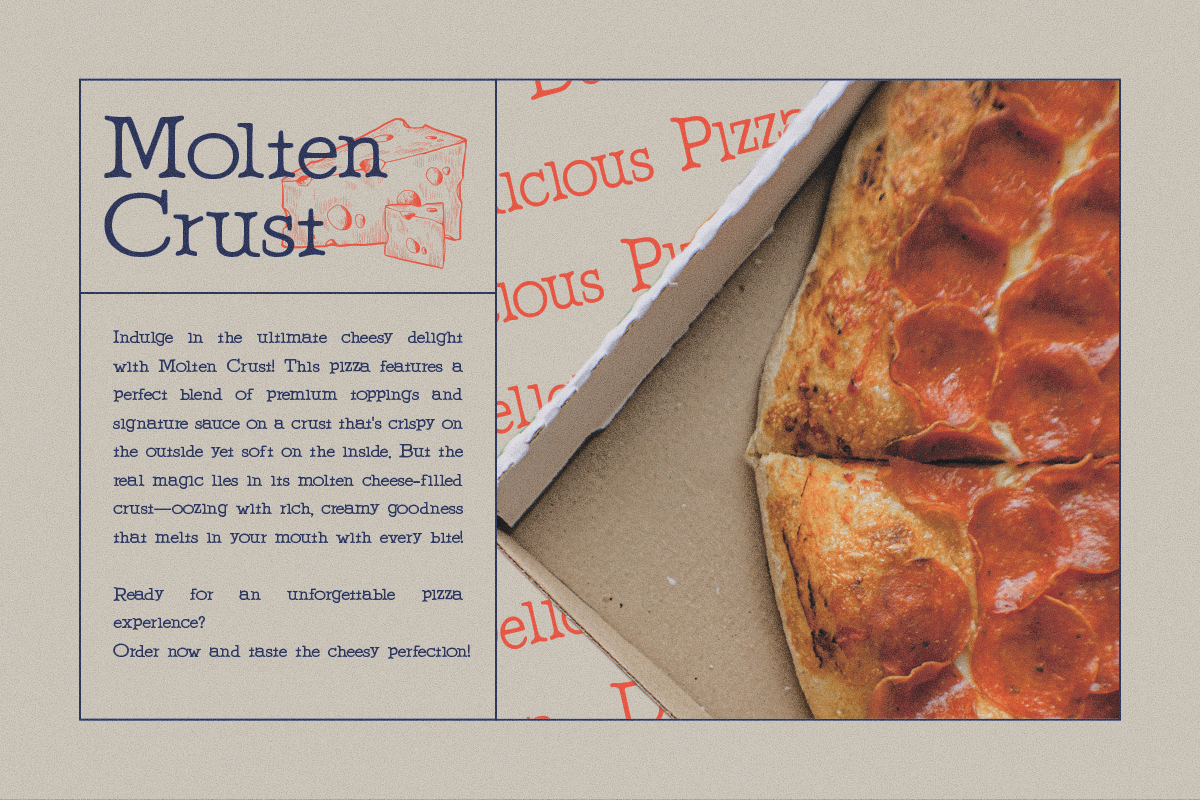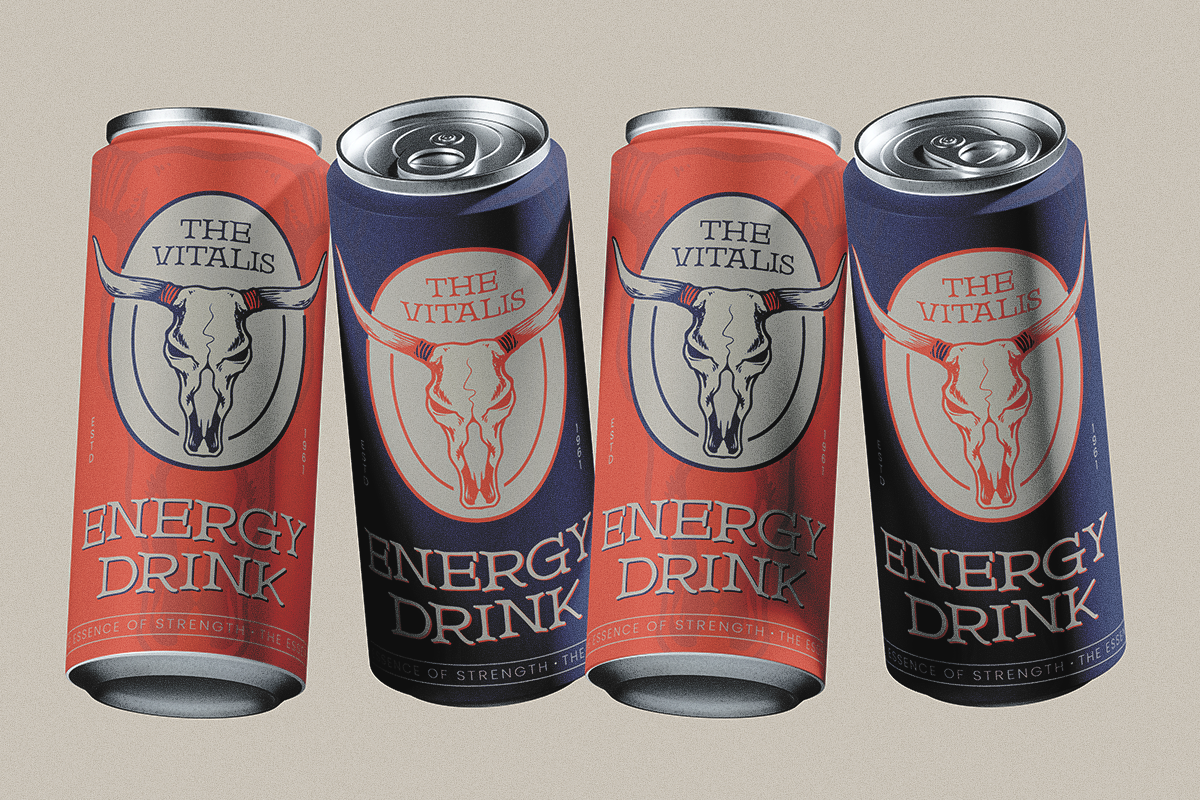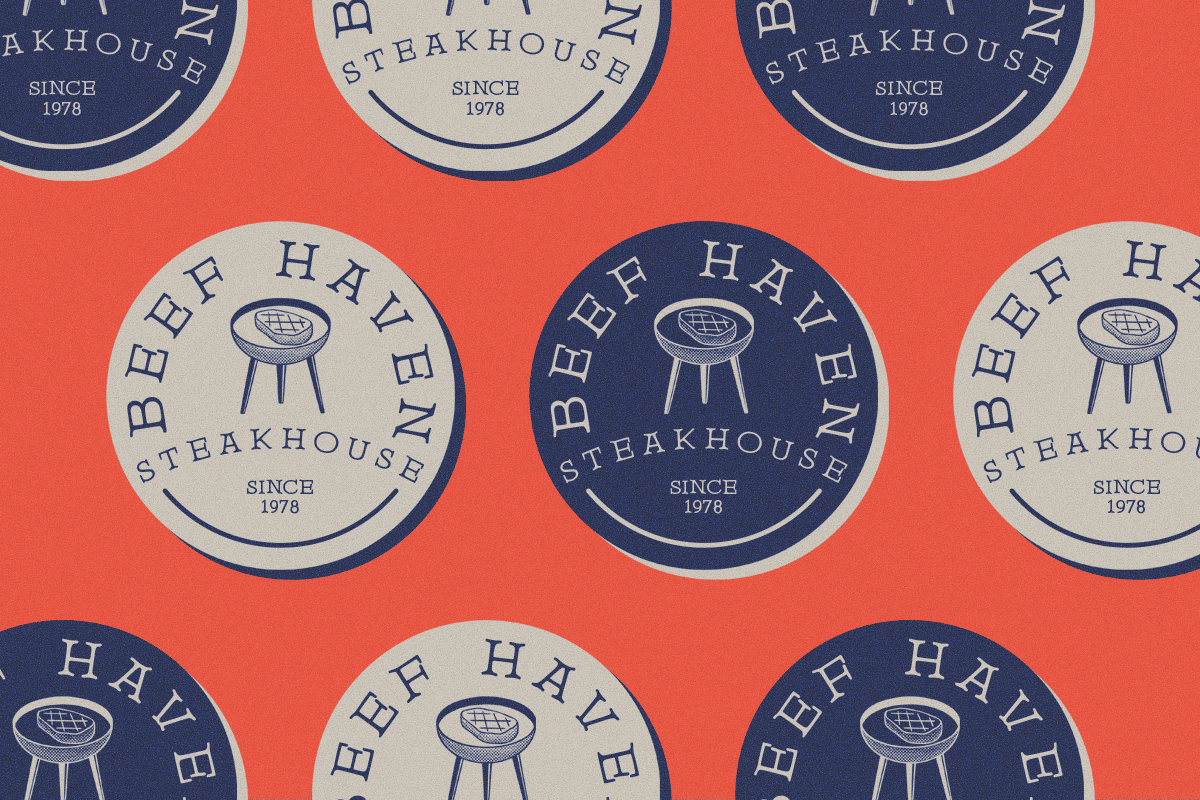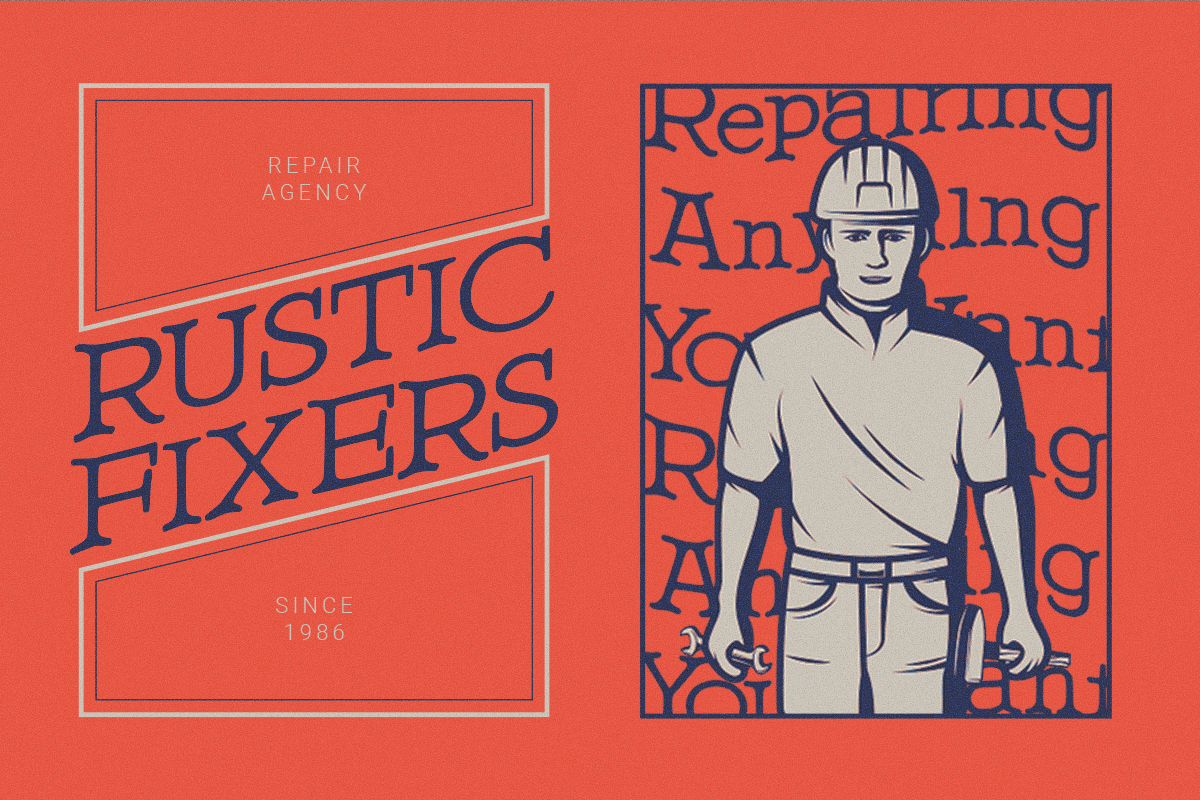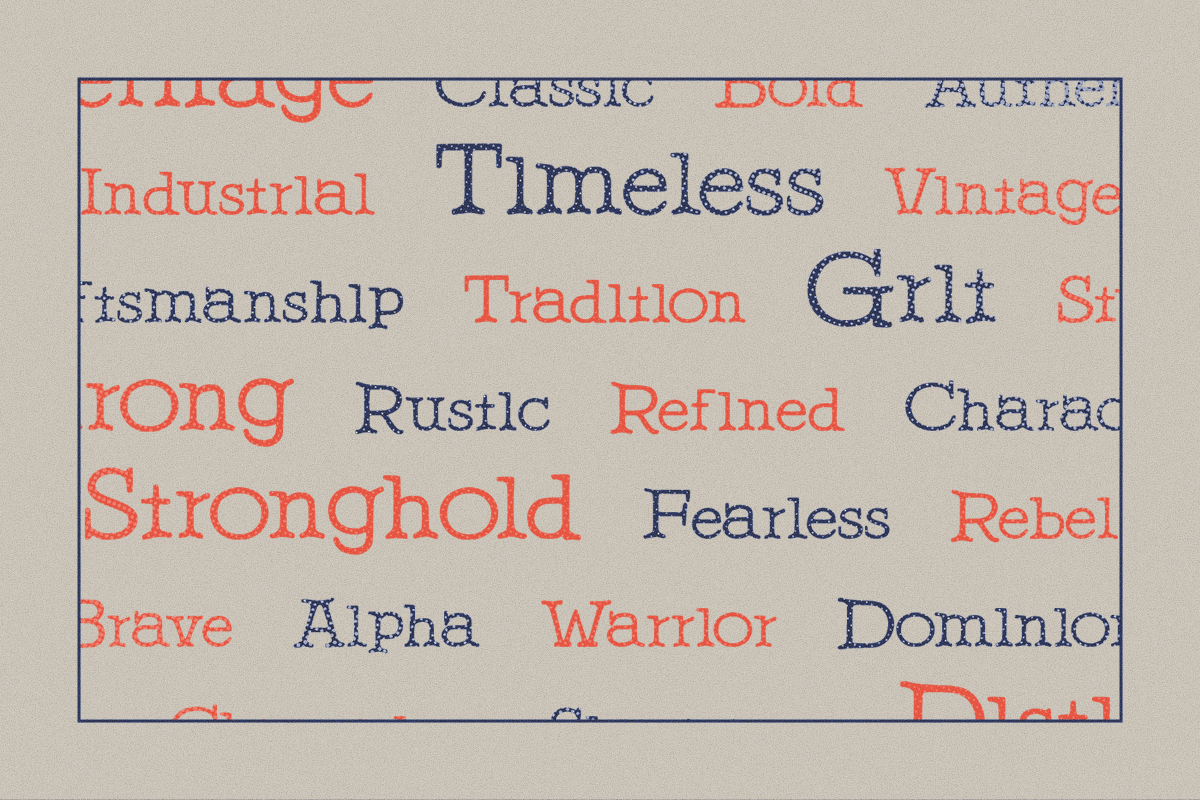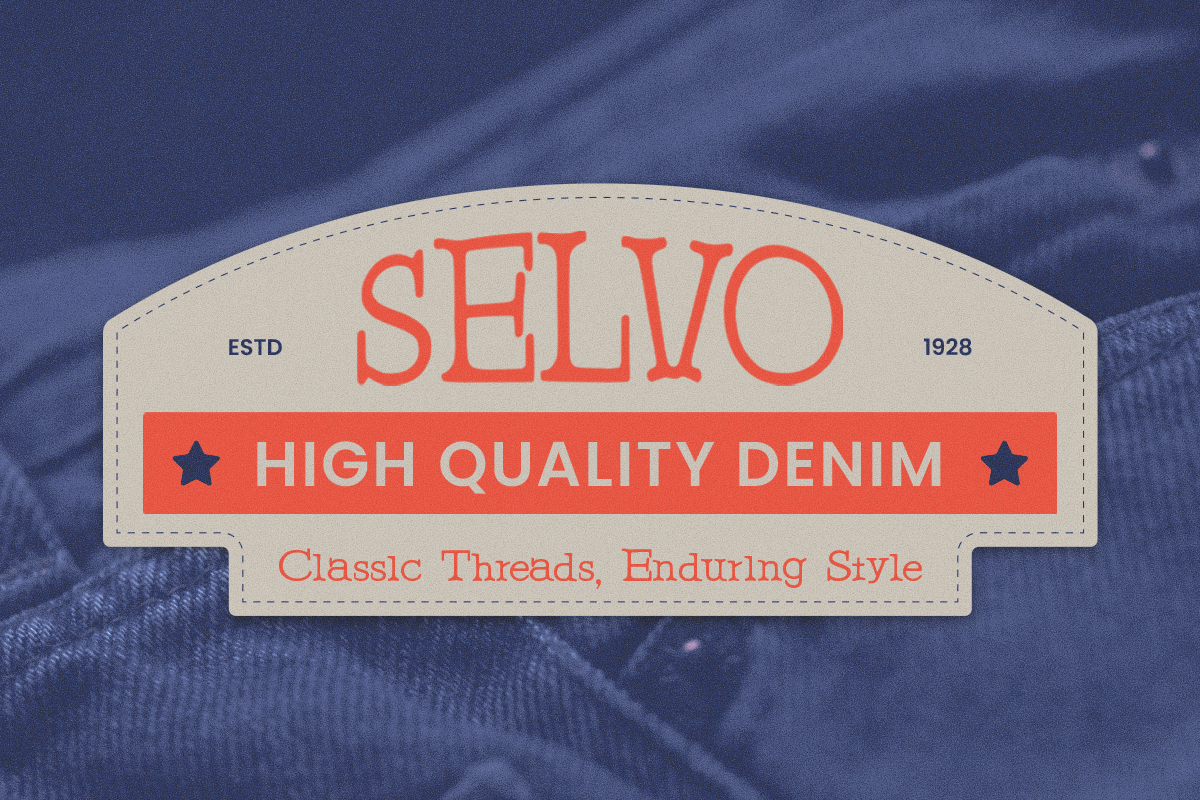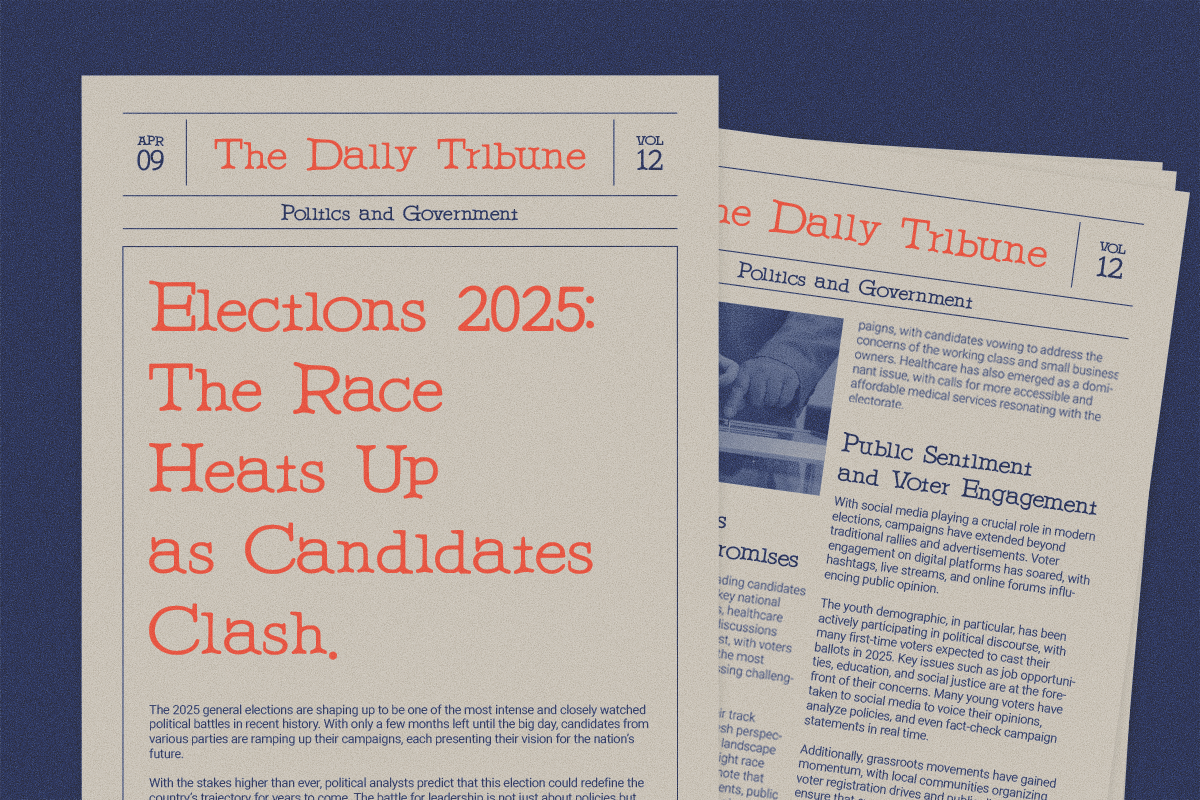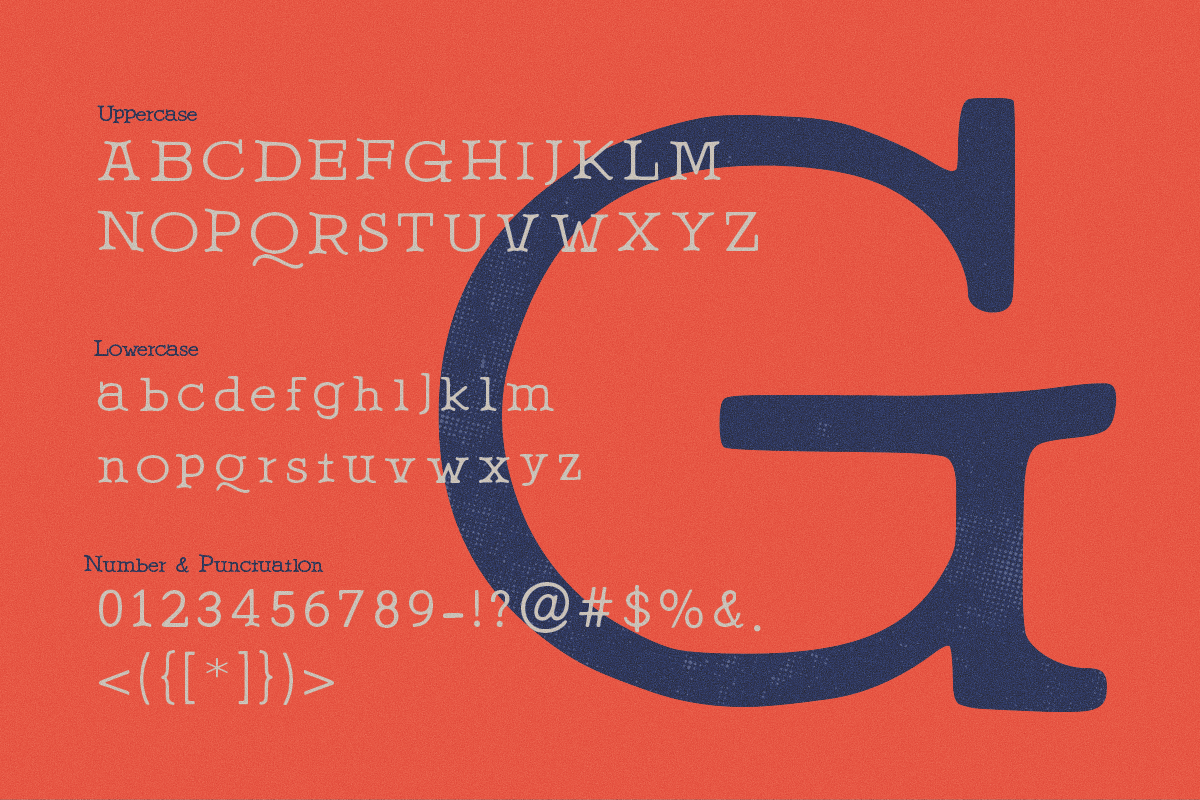
Westoria - Western Classic Serif
Westoria – Western Classic Serif Typeface
Westoria is a bold serif font with a vintage Western aesthetic, perfect for cowboy-inspired designs, rustic branding, classic signage, and bold typography. Its timeless style brings an authentic, rugged charm to logos, packaging, book covers, and more.
- Full Character Set: Uppercase, lowercase, numbers, symbols, and punctuation